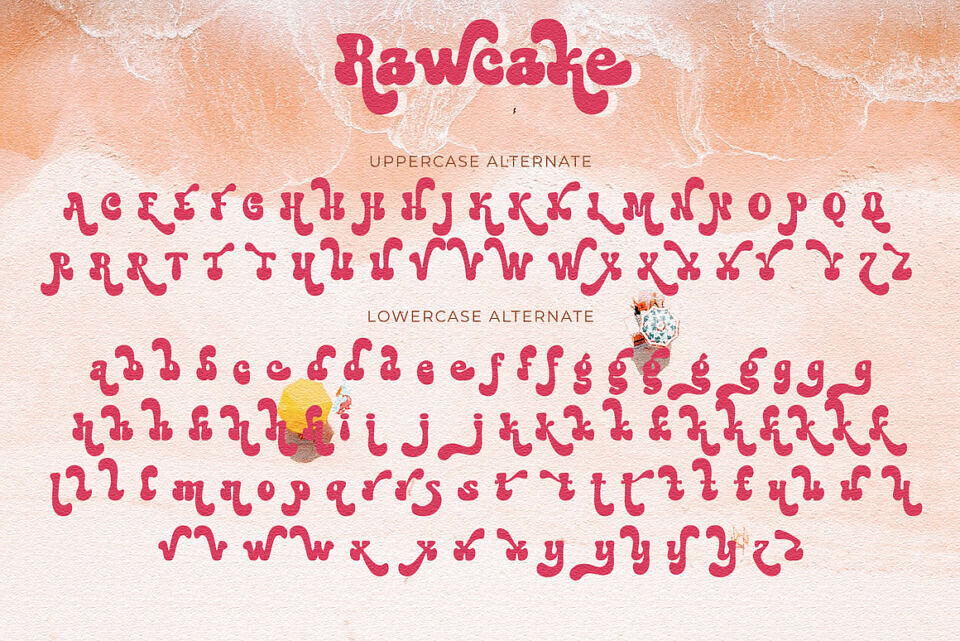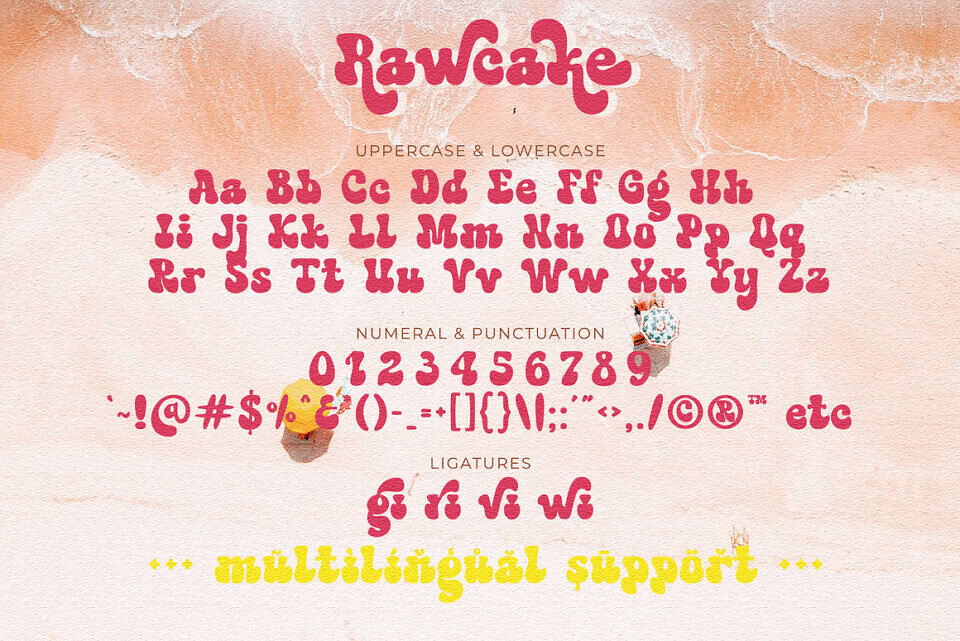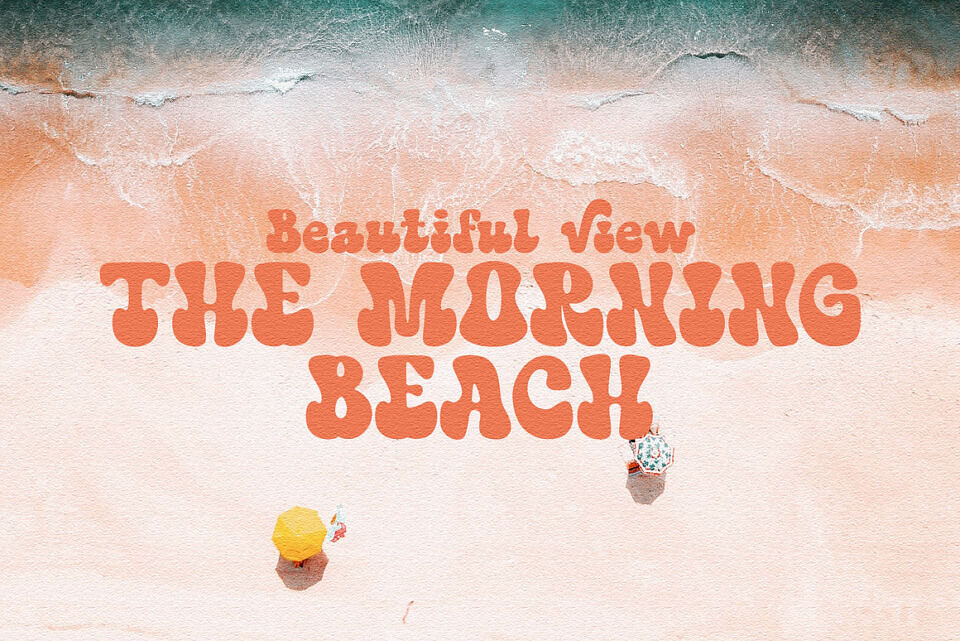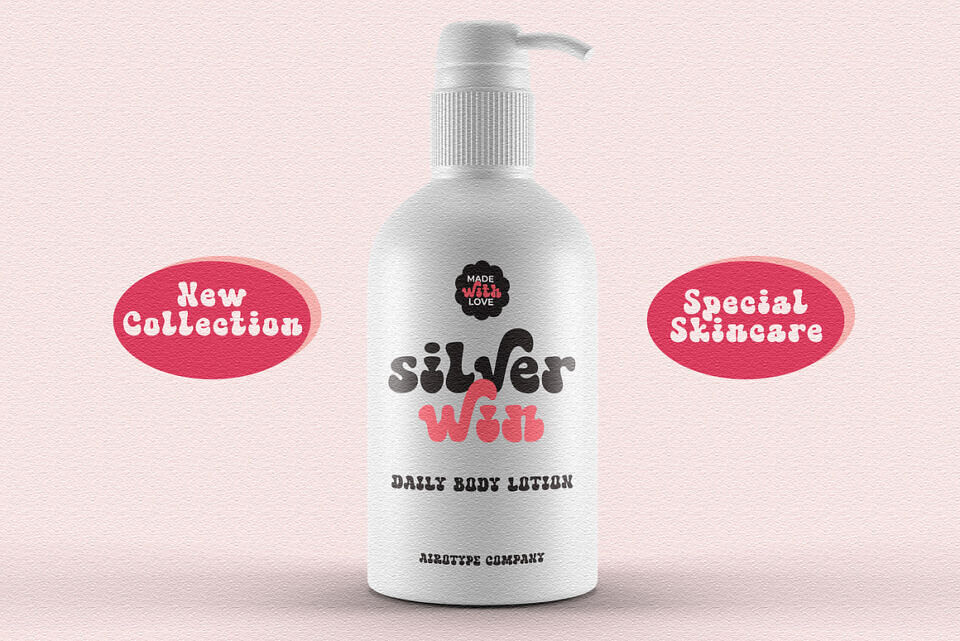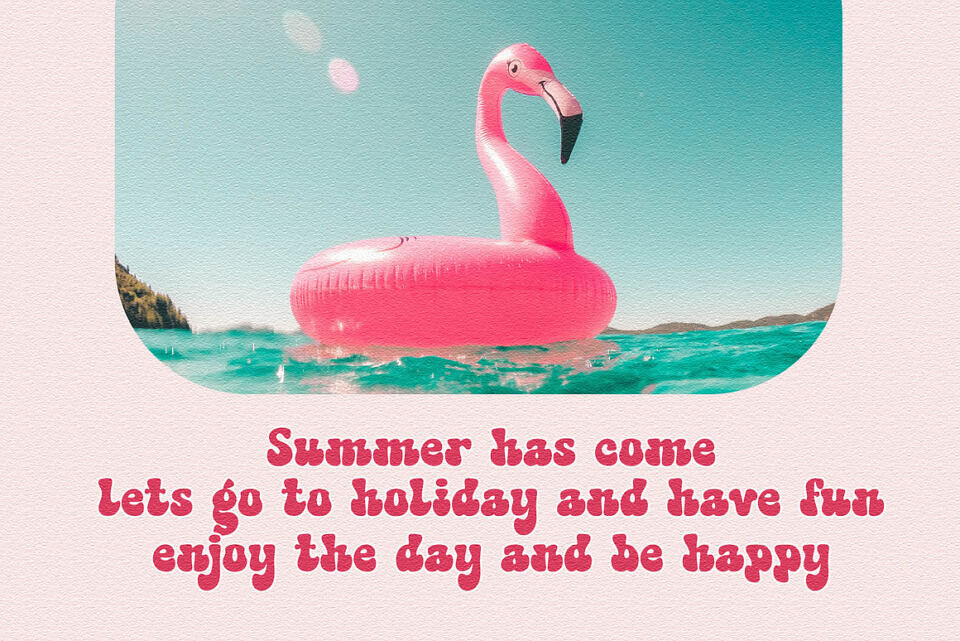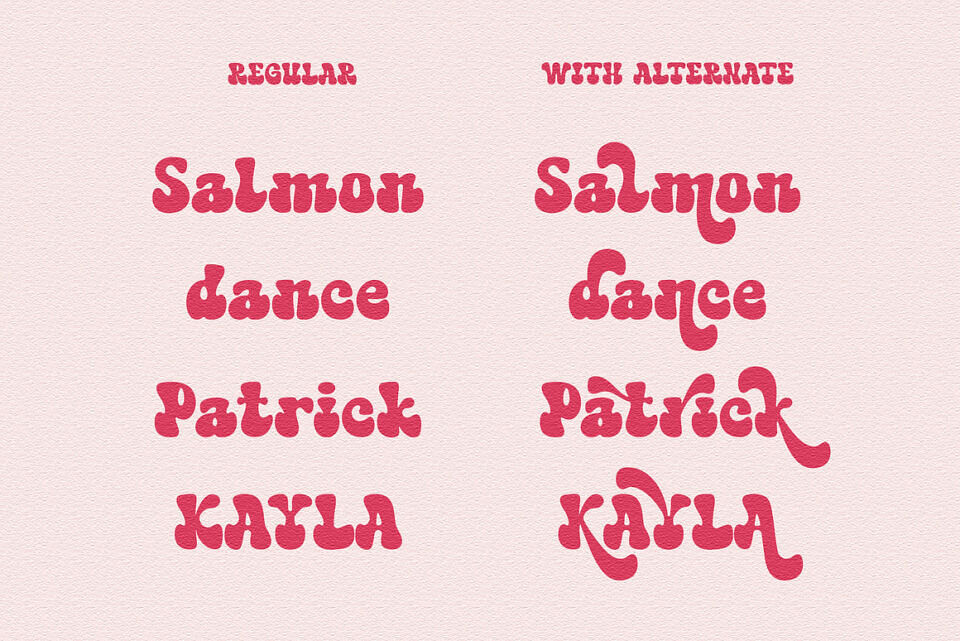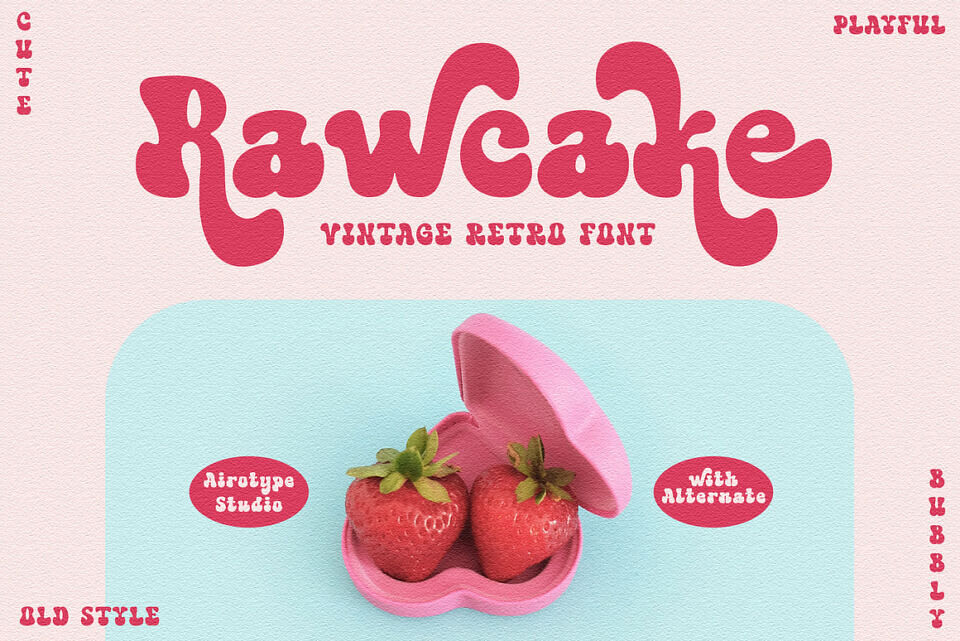
Rawcake Font
Rawcake is bubbly and fun vintage font with retro vibes. Rawcake has alternative extra glyphs that can be accessed easily.
This font is perfect for any projects, such as logo, crafting, wedding invitation, branding, sticker, sublimation, quotes, and many more.